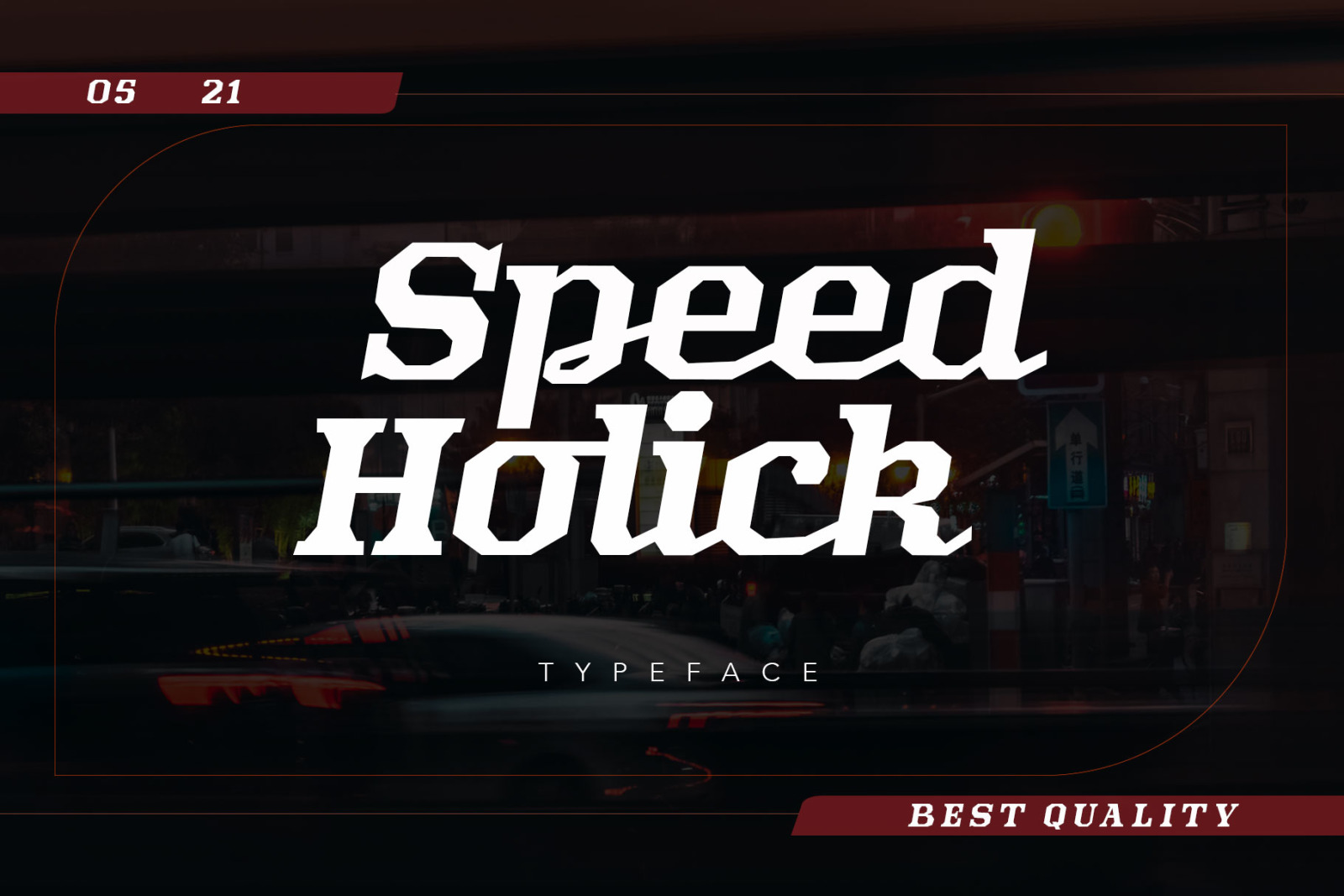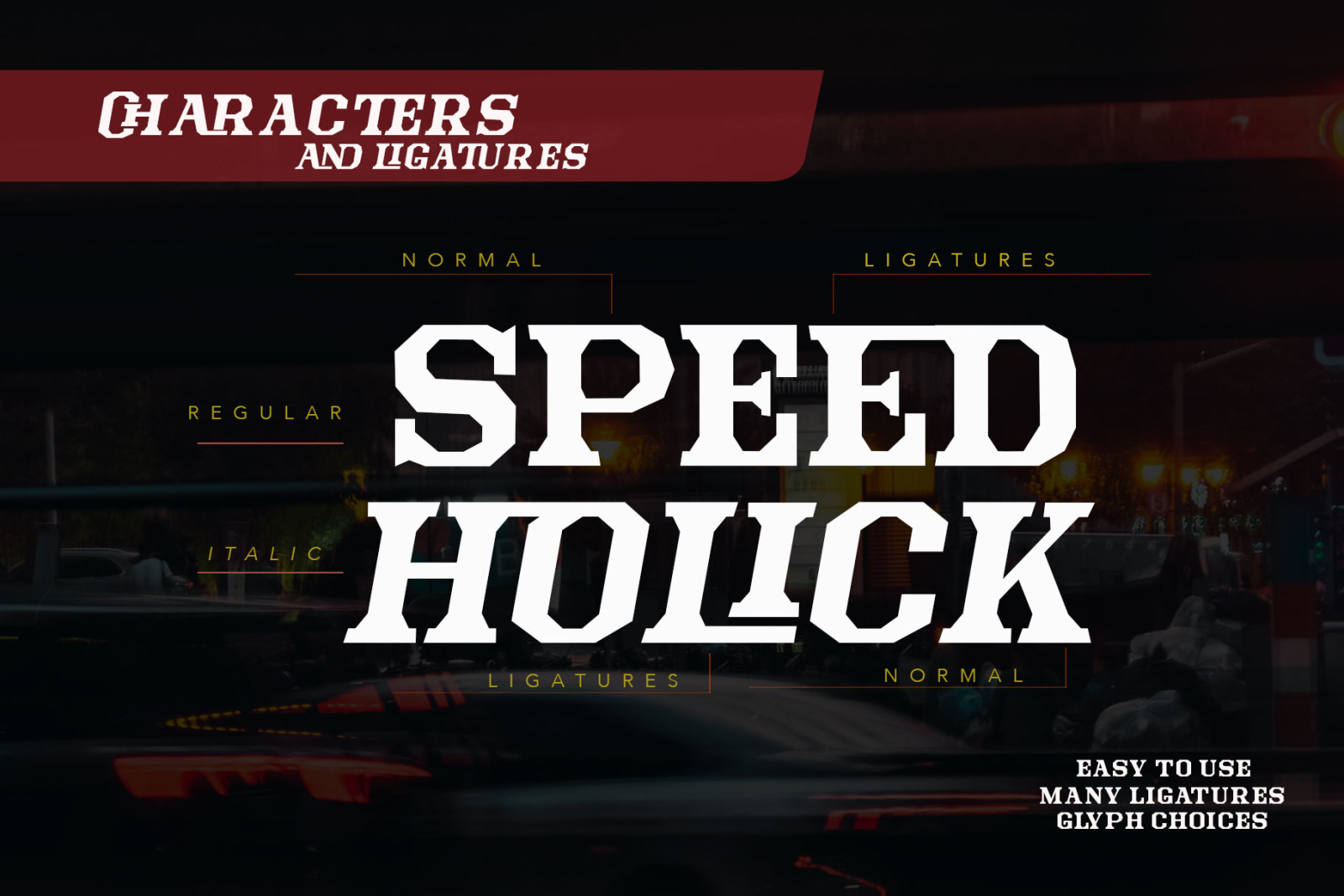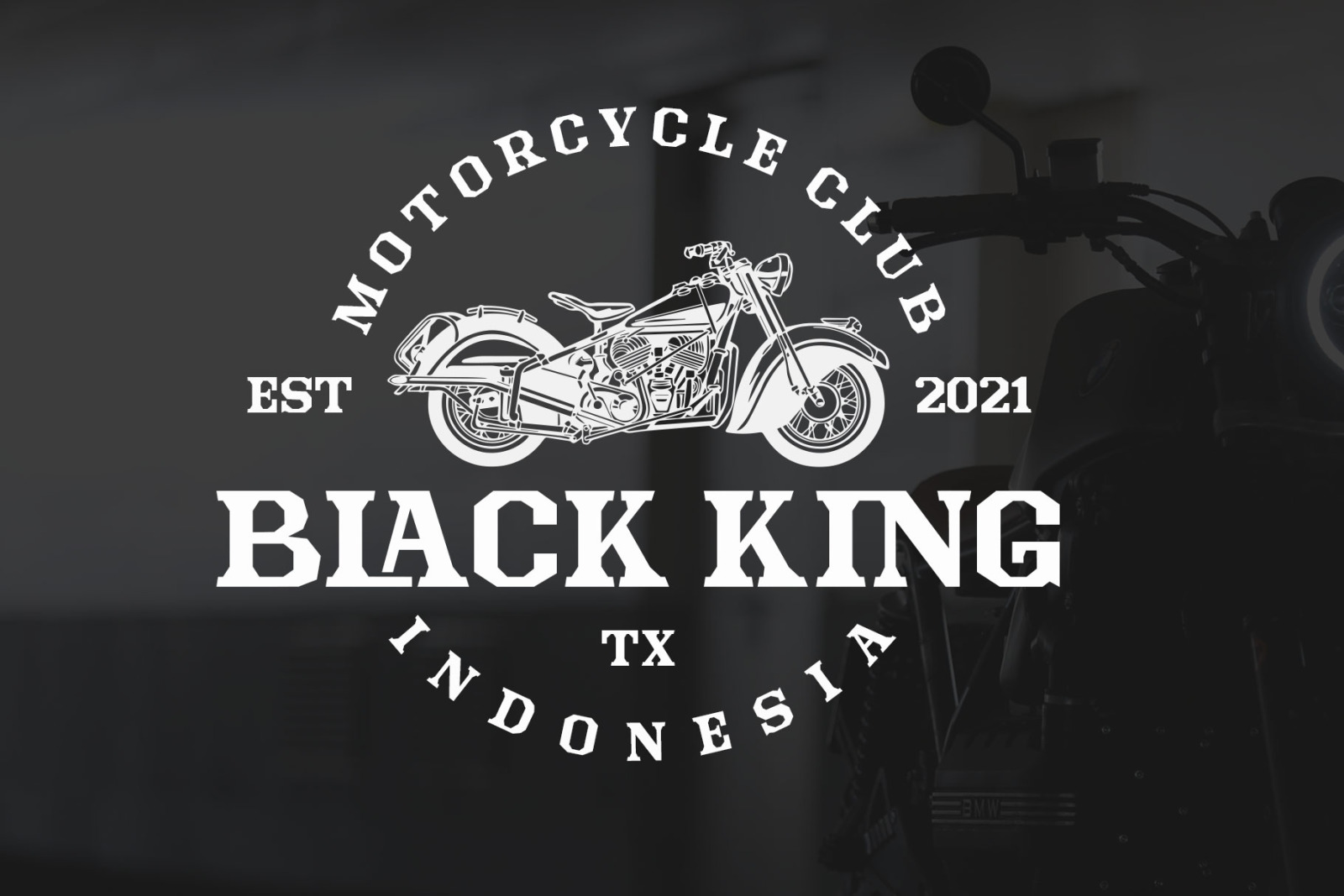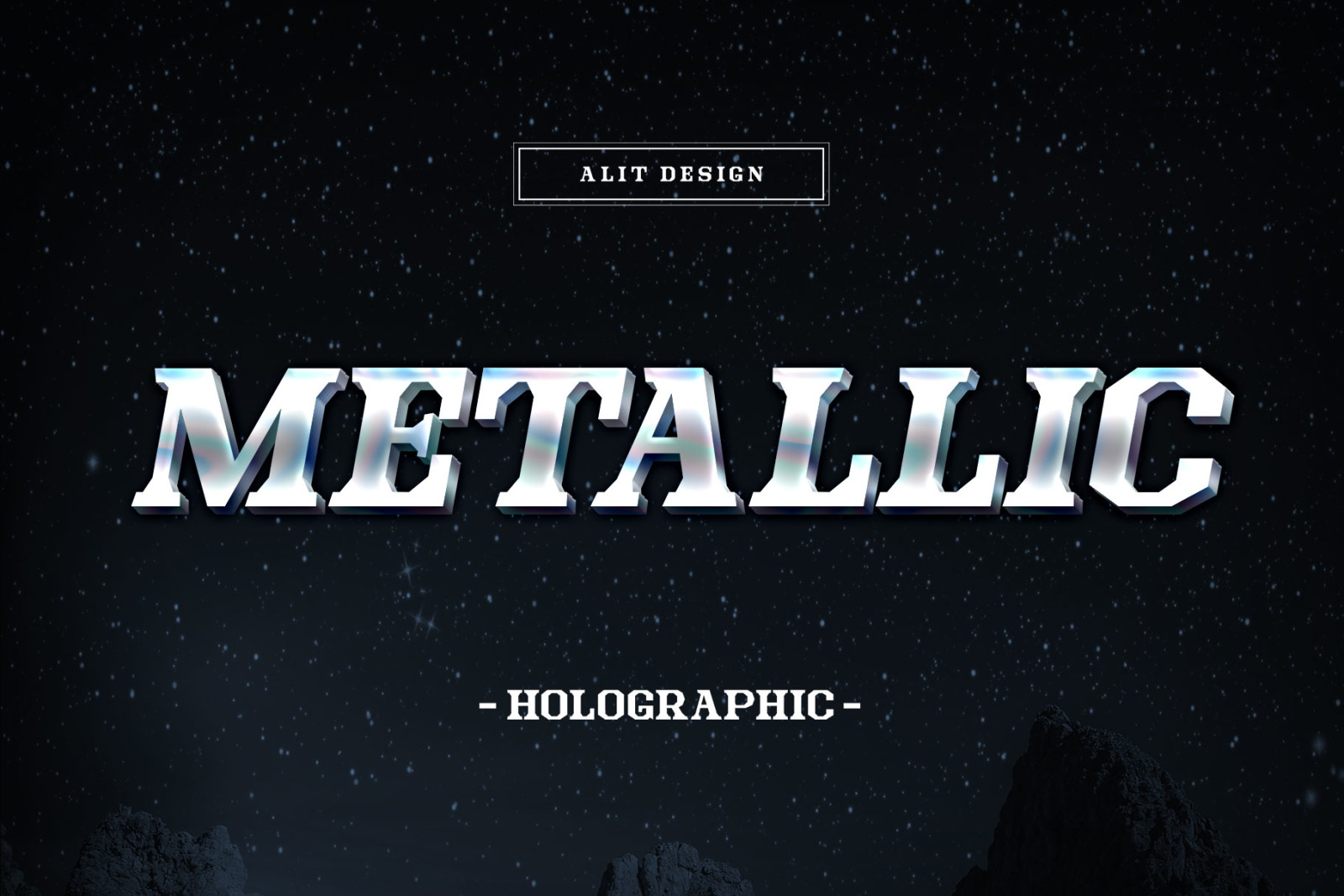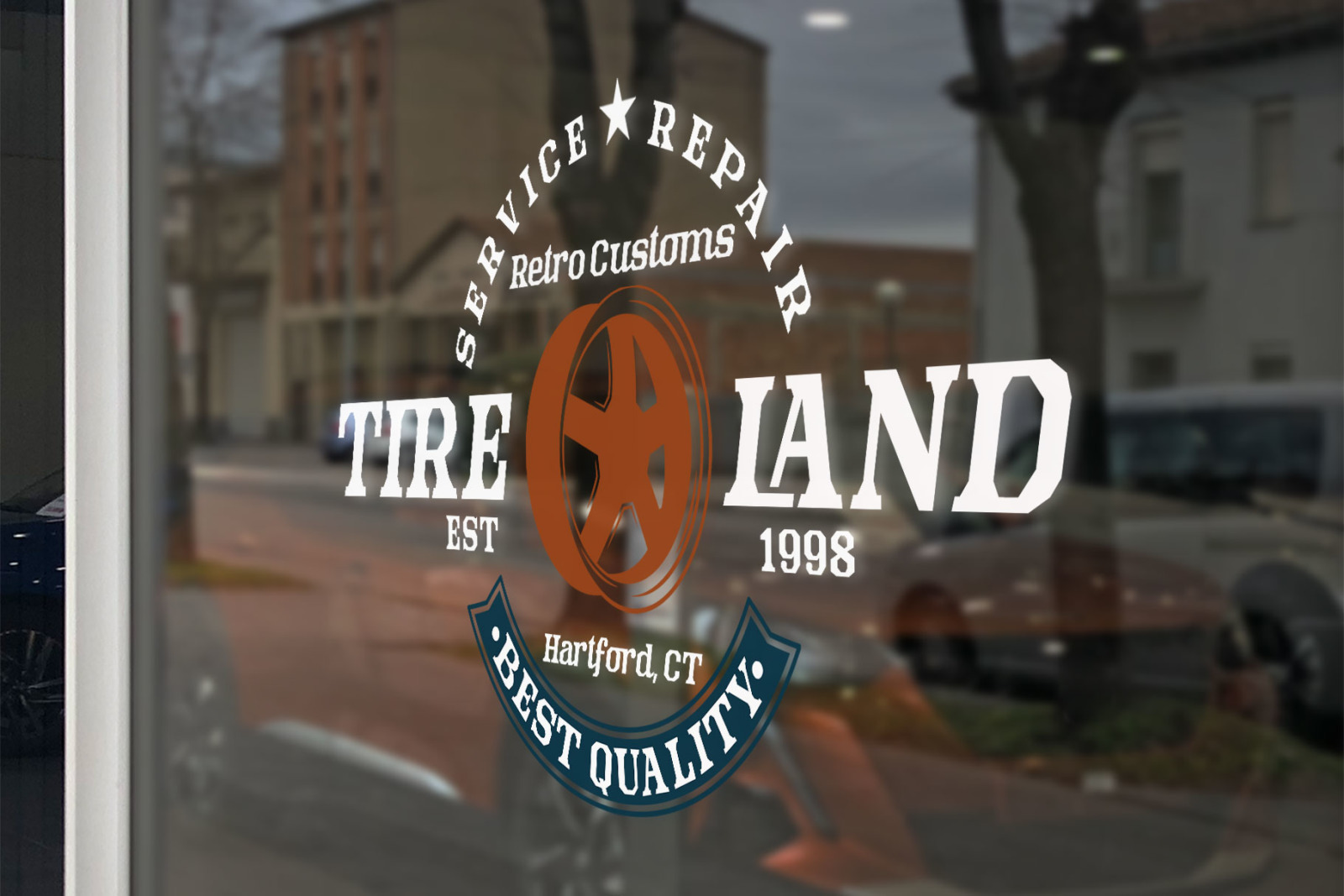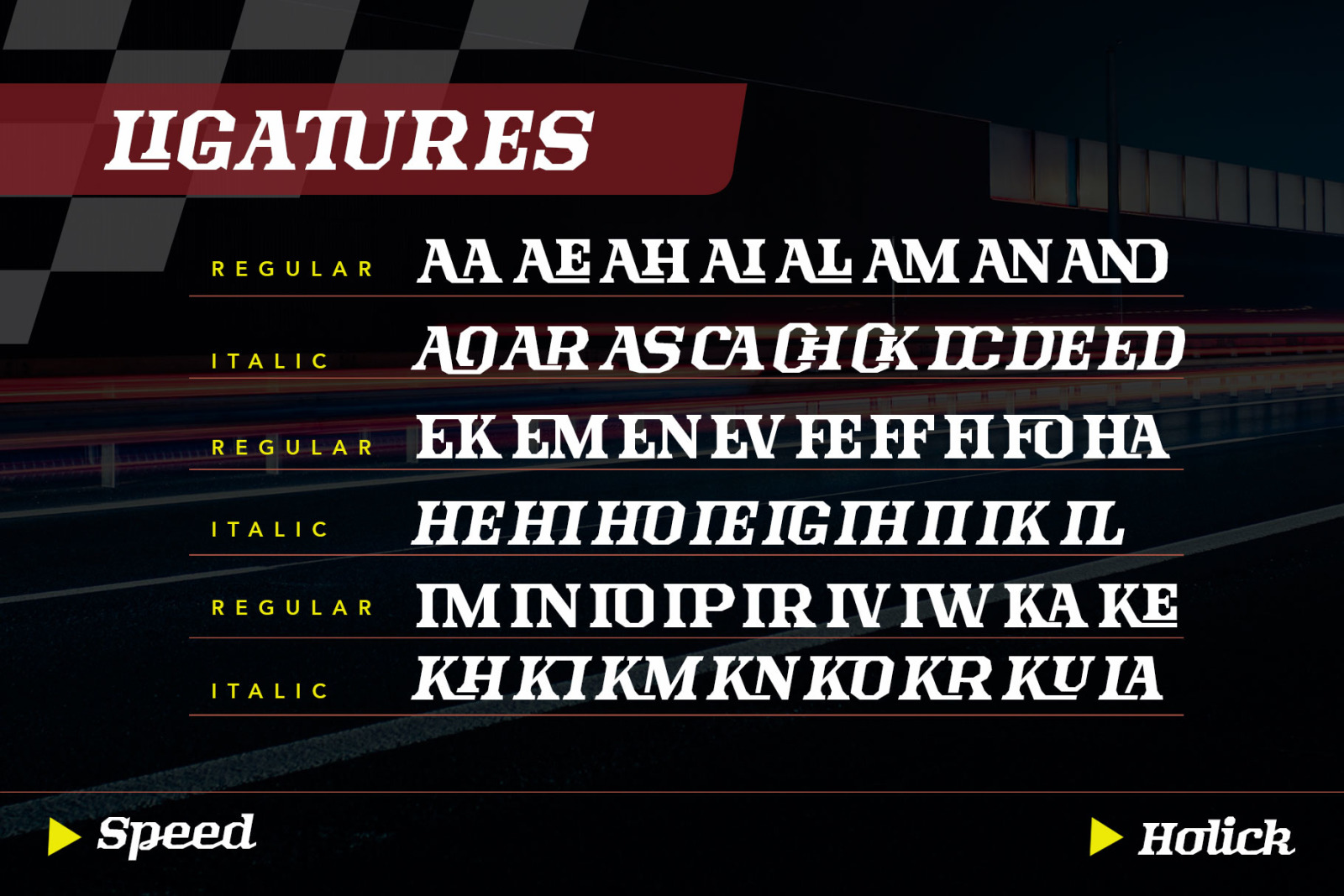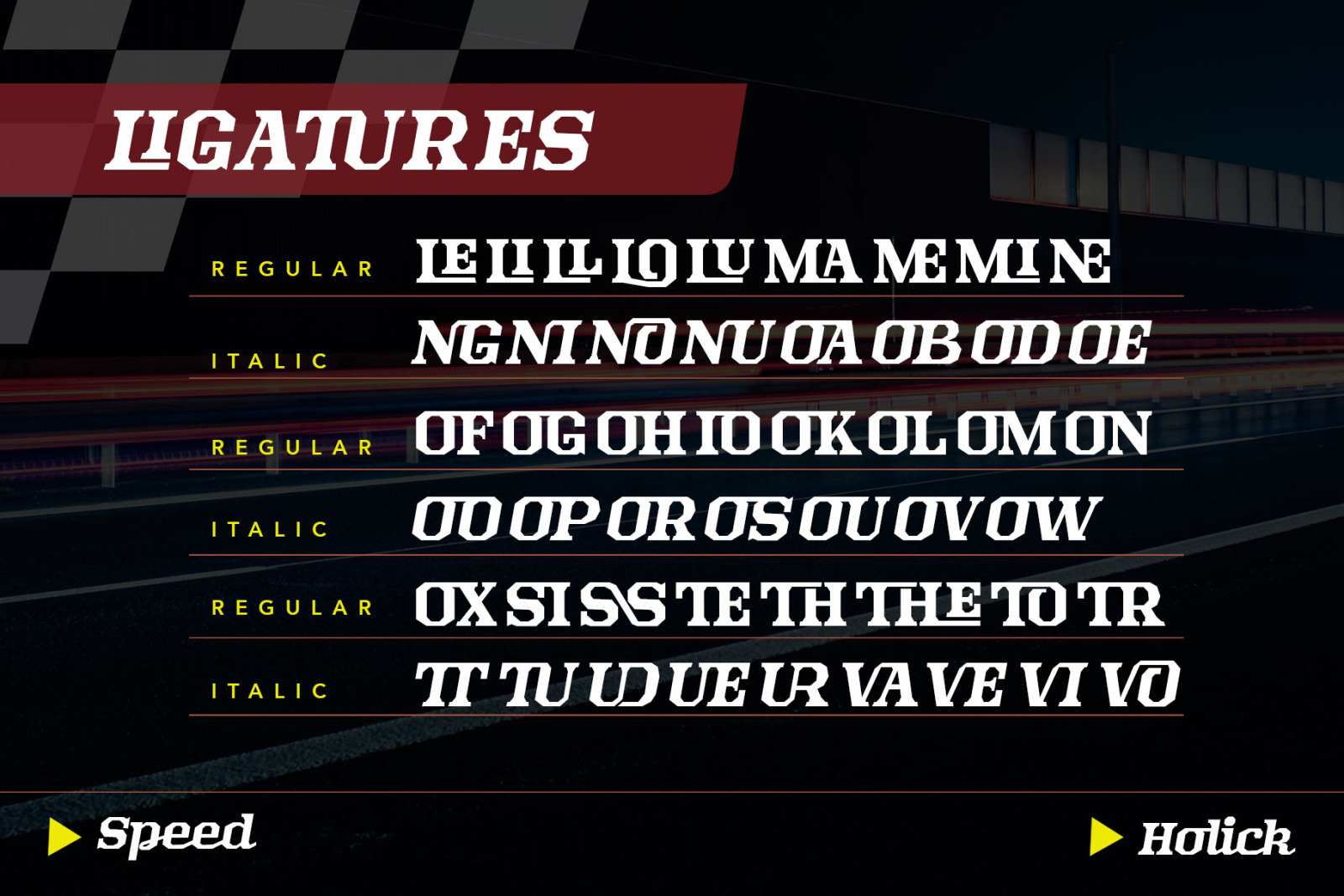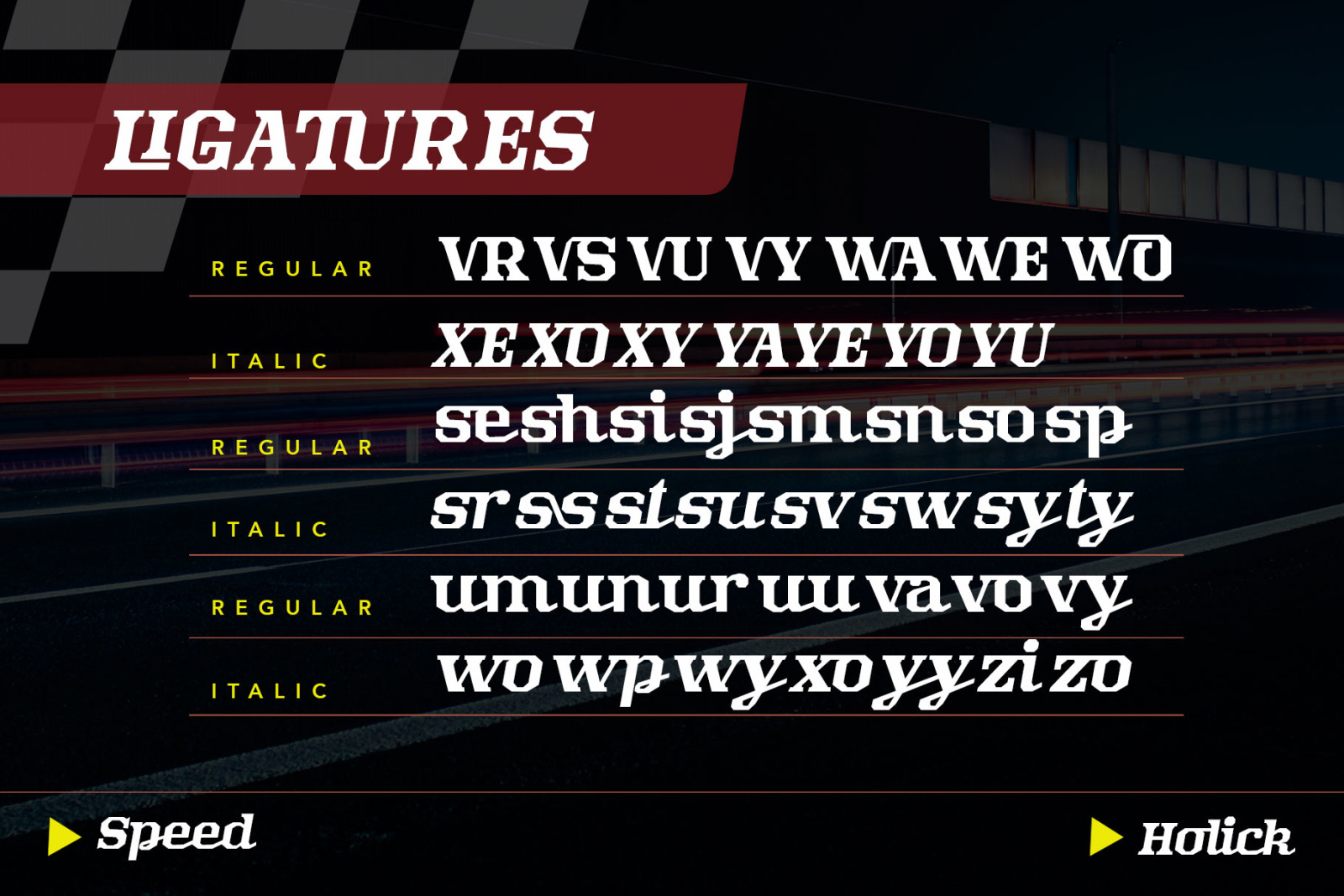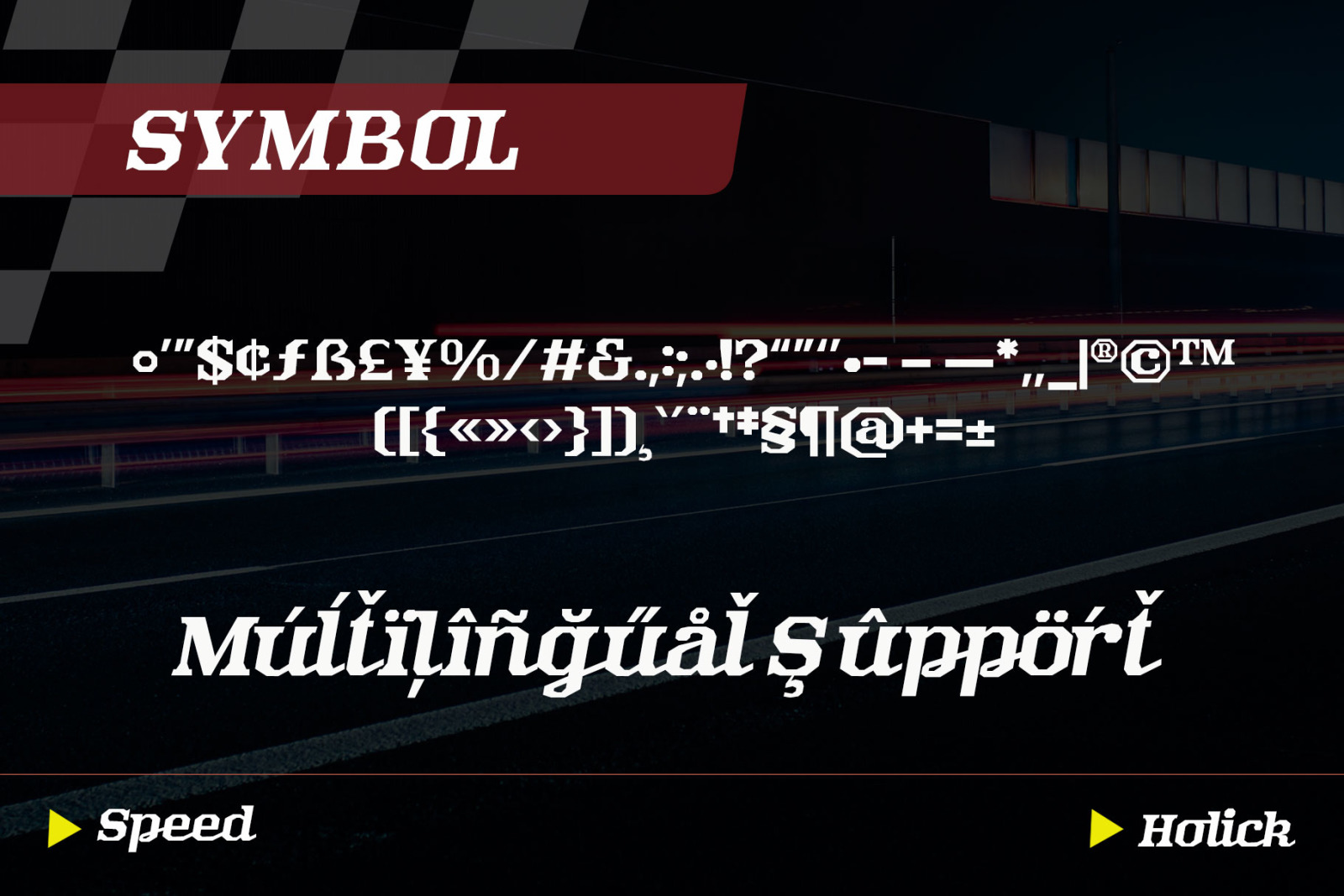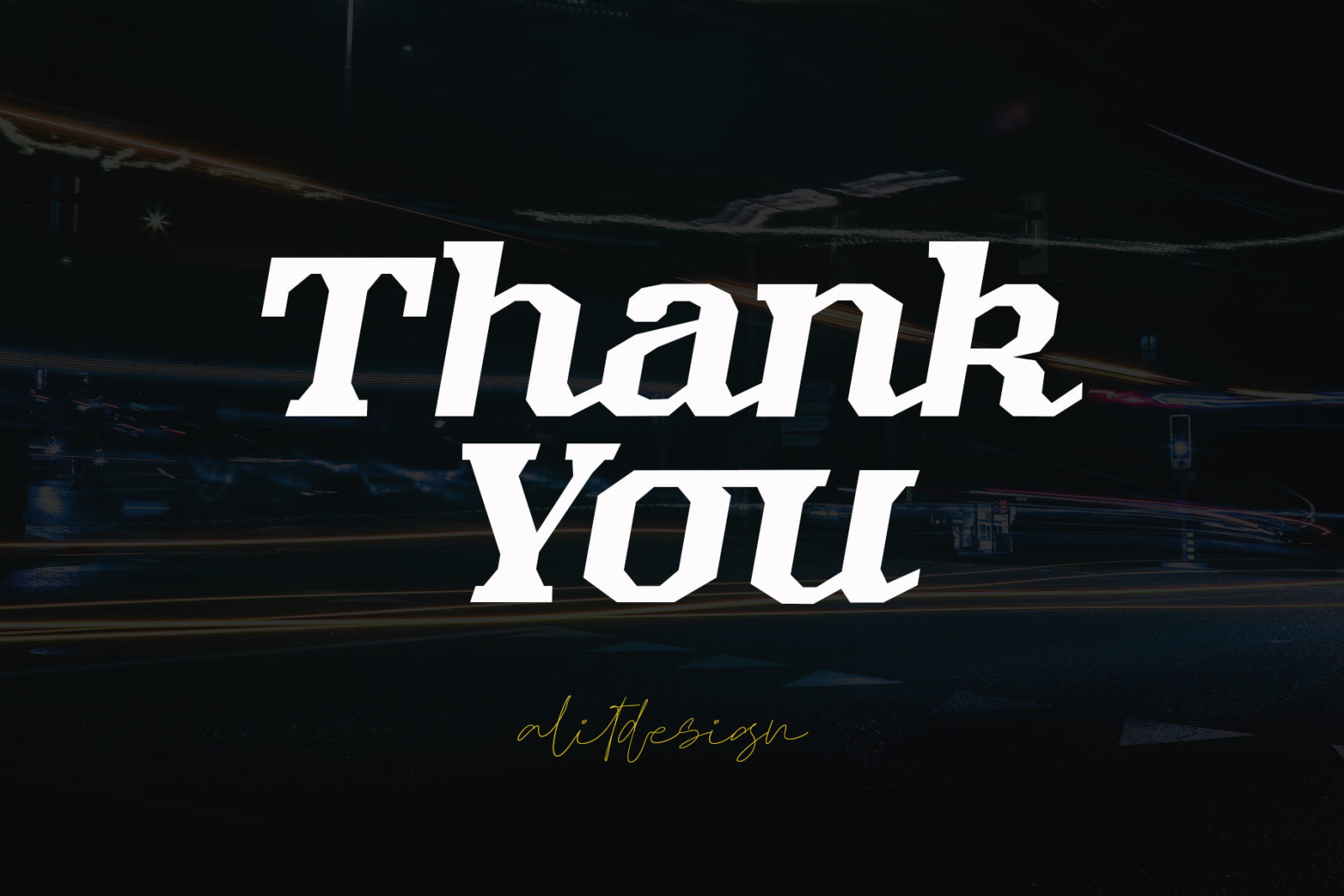
Speed Holick Typeface
Introducing Speed Holick Typeface
The Speed Holick typeface is inspired by the speedy and racing team design. Designed with a modern digital concept, this font looks different and cool to use for making neon lettering designs. Italic display font like “Speed Holick Typeface” are very easy to apply to any design, especially those with an strong, speed and sporty concept, apart from that this font is very easy to use in both design and non-design programs because all alternates and glyphs are supported by Unicode (PUA).